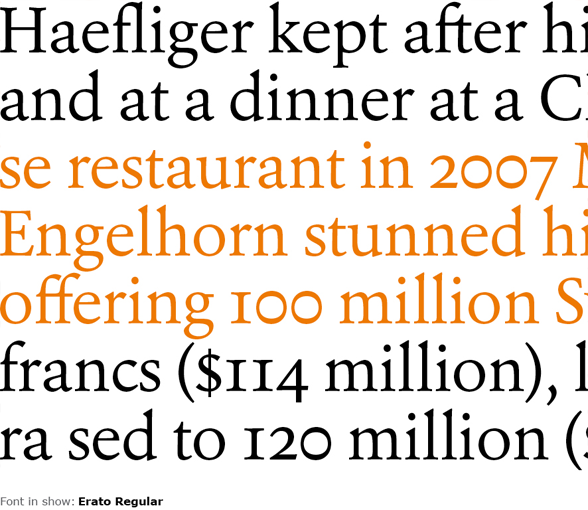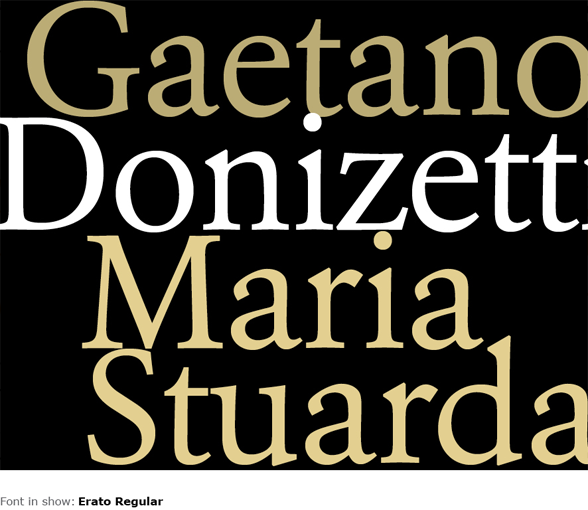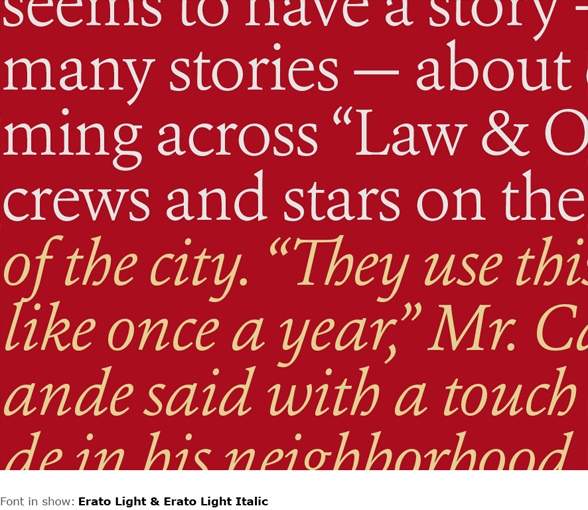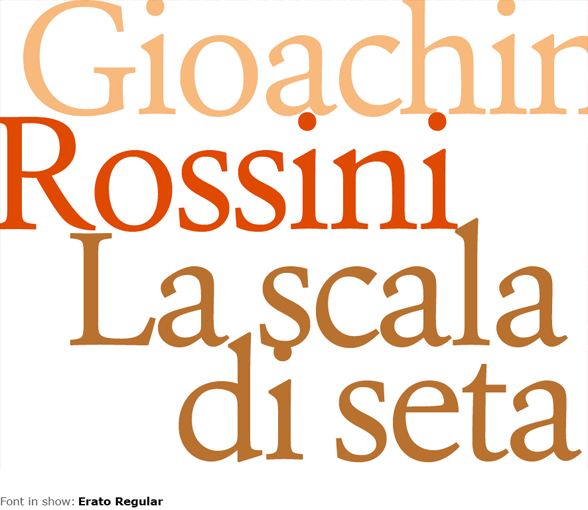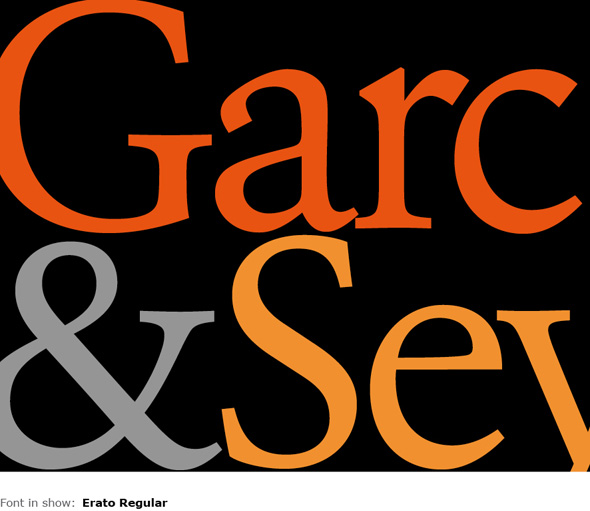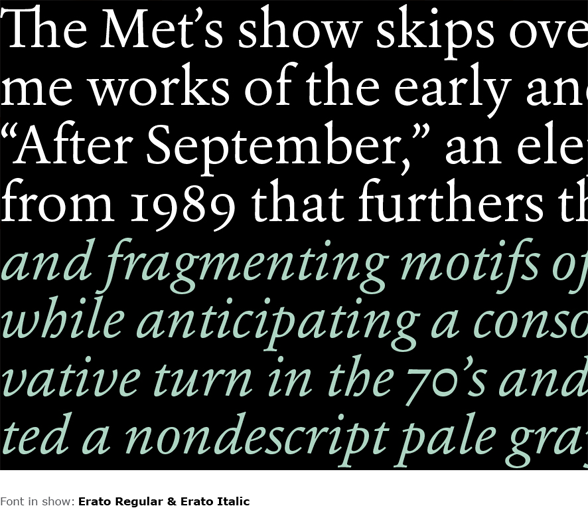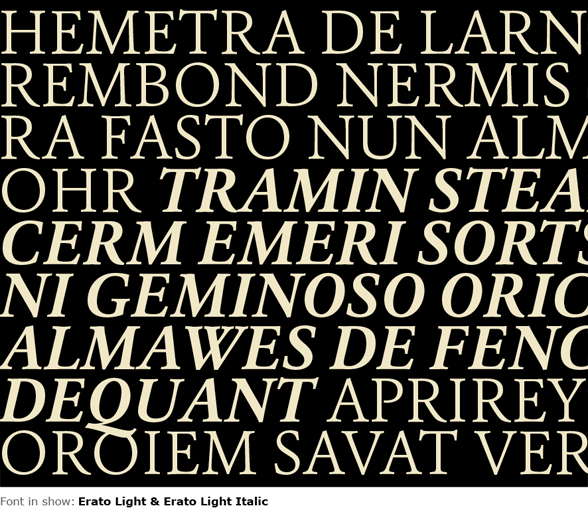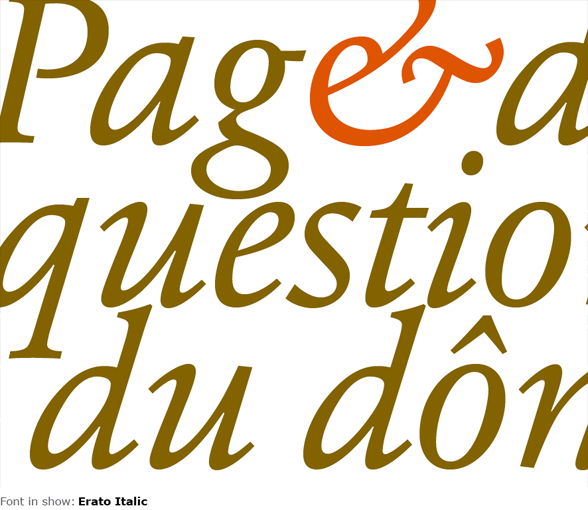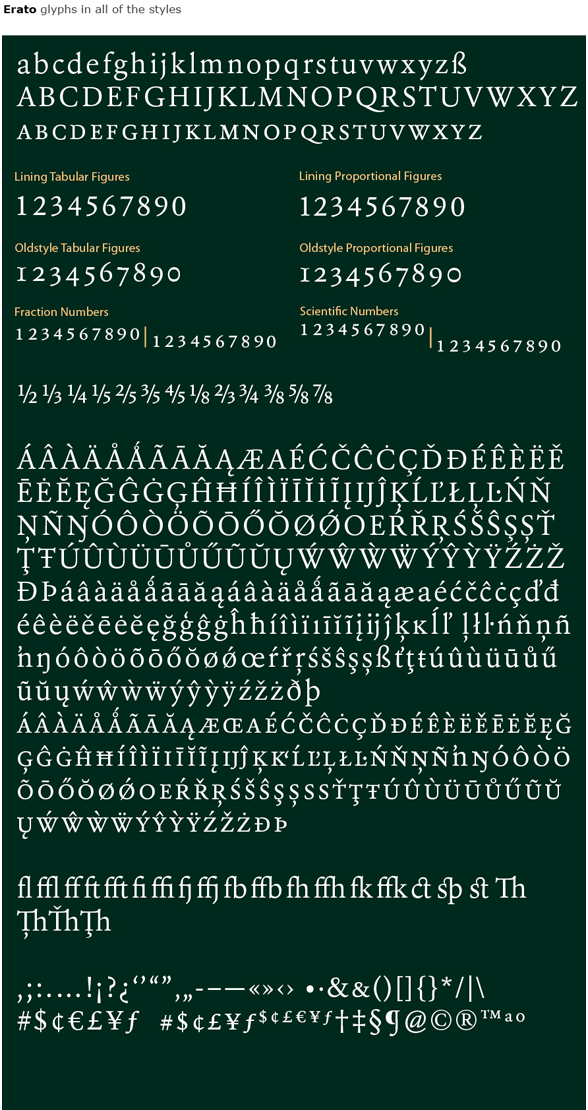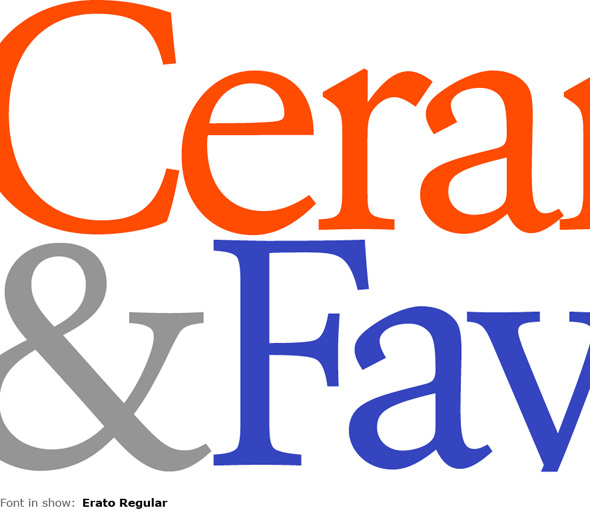
Erato
Erato follows the structure of french and dutch 17th century types. But instead of being historical, it uses modern formal elements. The simplification of similar formal elements creates a homogeneous and contemporary impression.
Erato comes in six weights and in OpenType format. All weights contain standard and discretional ligatures, small caps, proportional lining figures, tabular lining figures, proportional old style figures, lining old style figures, matching currency symbols, fraction- and scientific numerals.
Erato supports English, French, German, Italian, Spanish, Catalan, Dutch, Danish, Swedish, Finnish, Norwegian, Icelandic, Polish, Czech, Hungarian, Estlandish, Turkish, Slovac, Estonian, Latvian, Lithuanian, Albanian, Croatian, Romanian, Slovenian, … more than 40 languages.